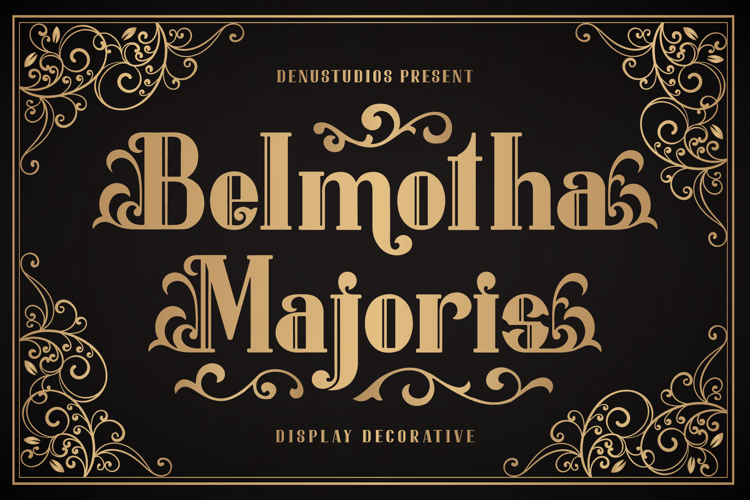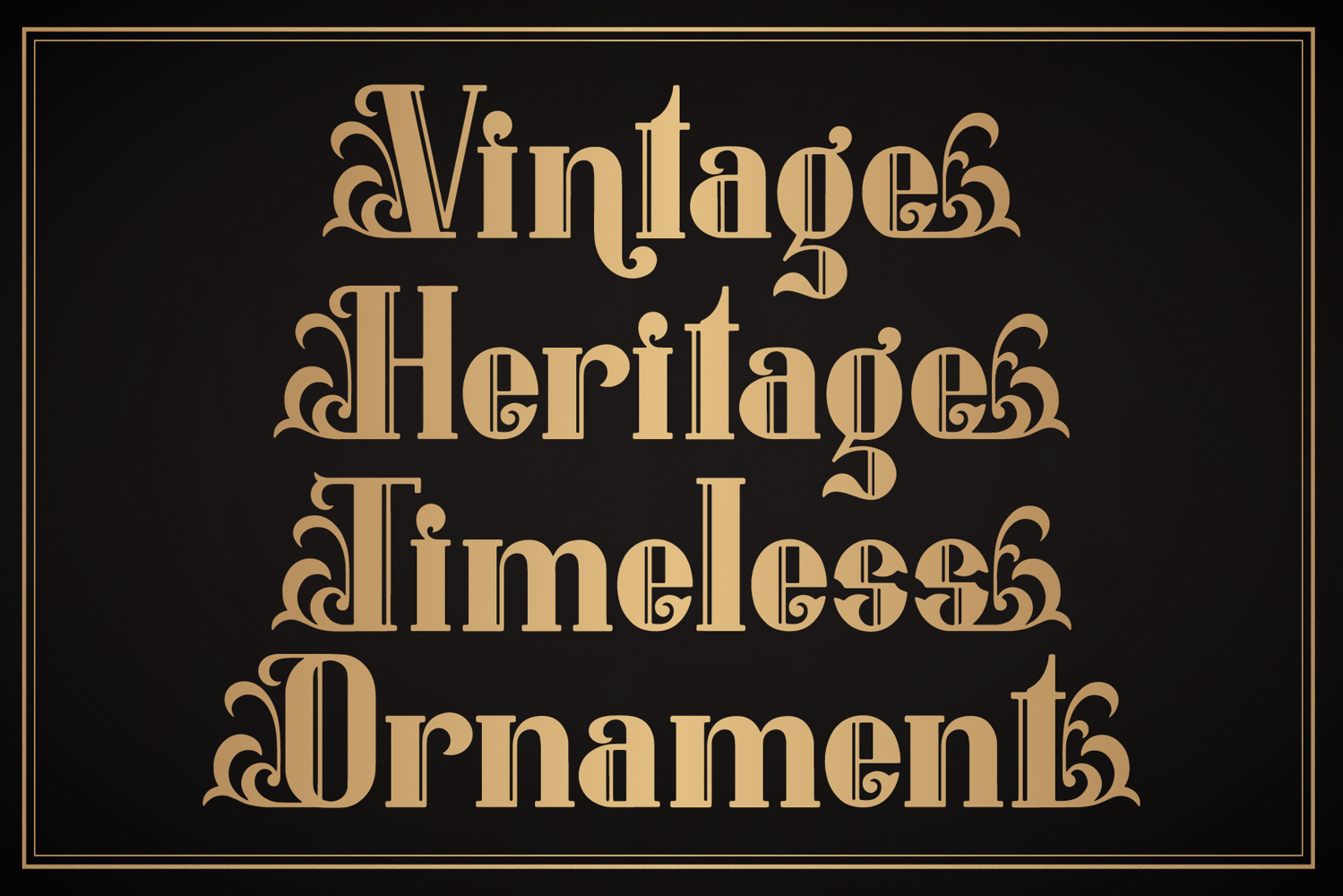
Belmotha Majoris | Display Decorative, from Denustudios, suitable for any projects such as: logos, branding projects, homeware designs, product packaging, mugs, quotes, posters, shopping bags, t-shirts, book covers, name card, invitation cards, greeting cards, label, photography, watermark, special events, and all your other lovely projects that need a Decorative taste.